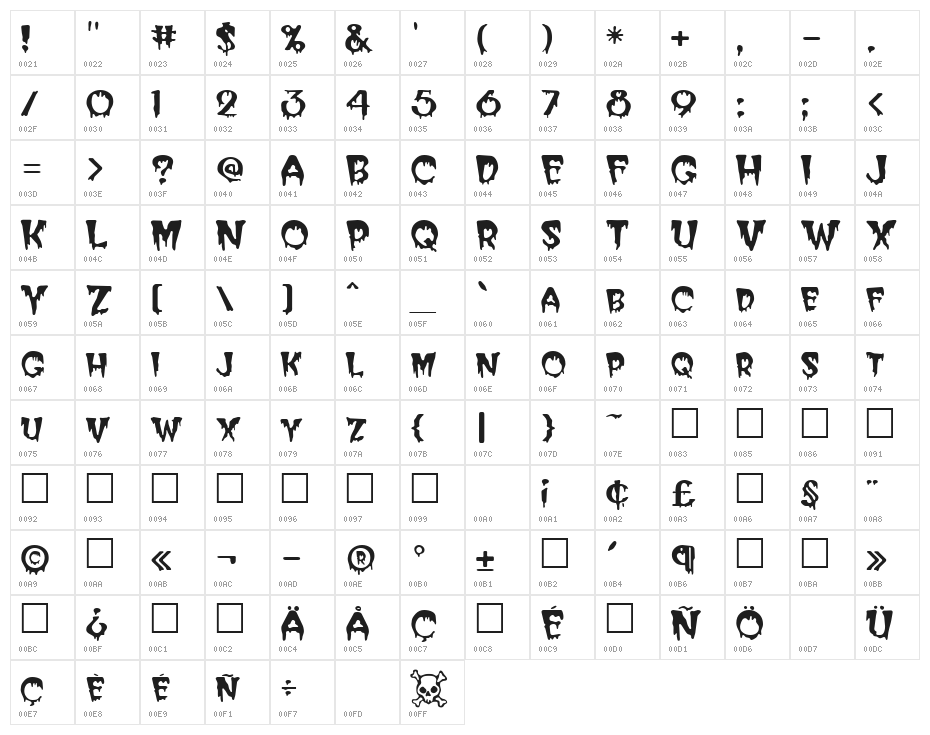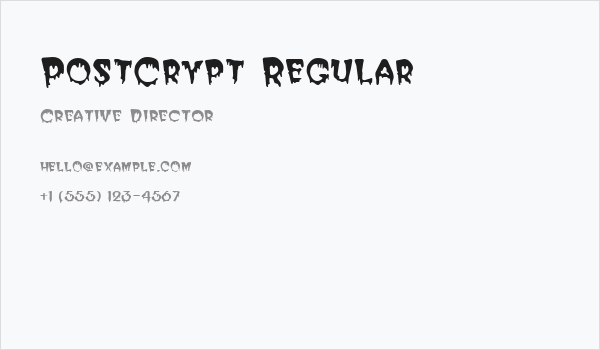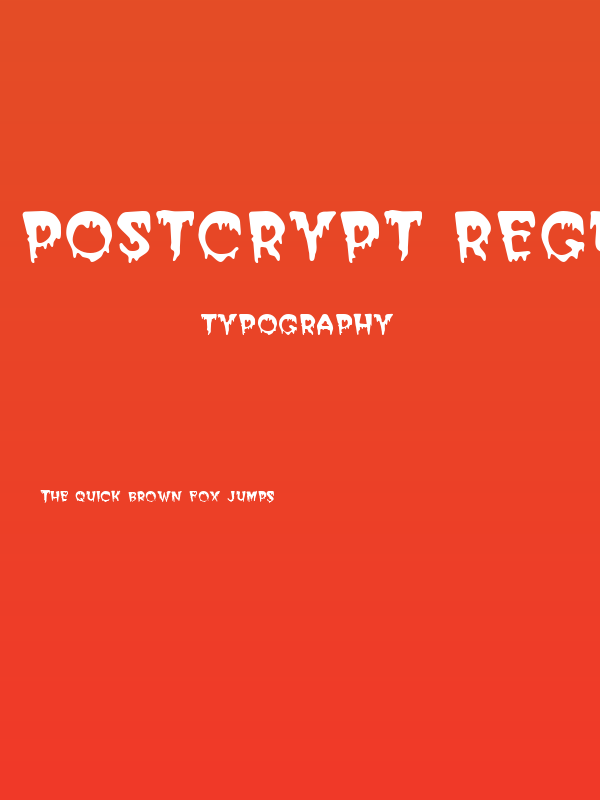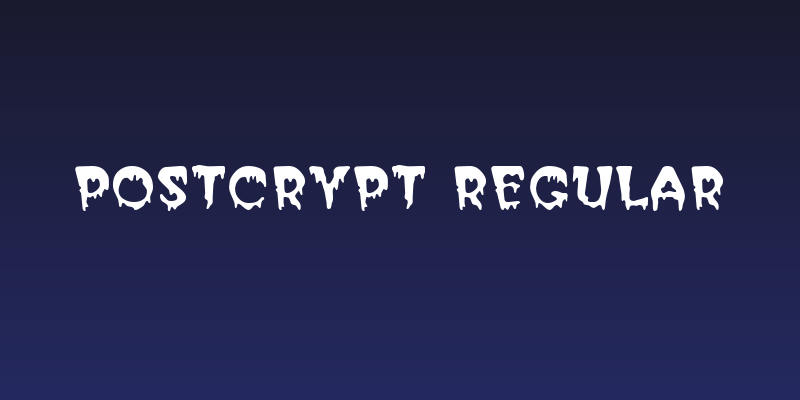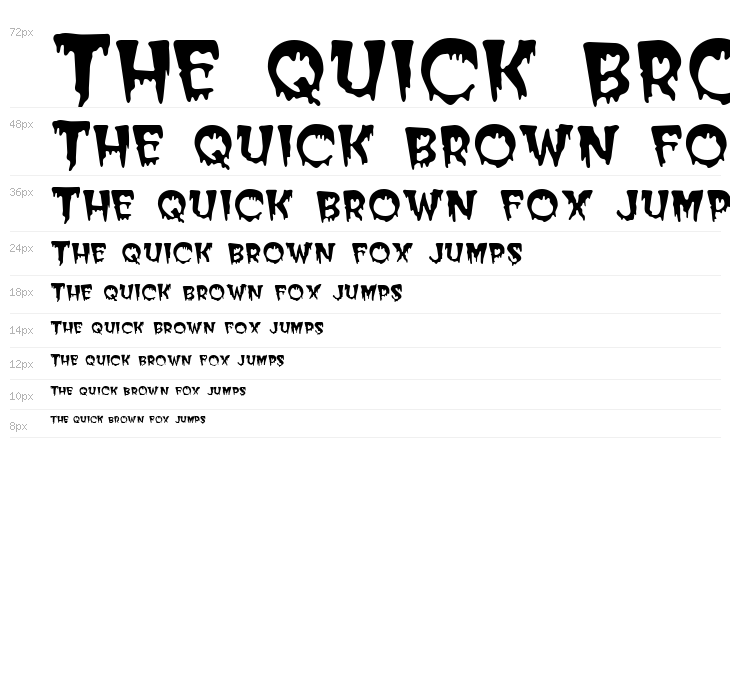
PostCrypt Regular Font
| Proiecte propuse | Ideal for Halloween invitations, horror movie posters, haunted house flyers, and themed party decorations. |